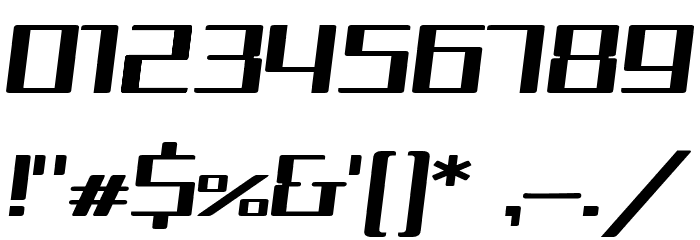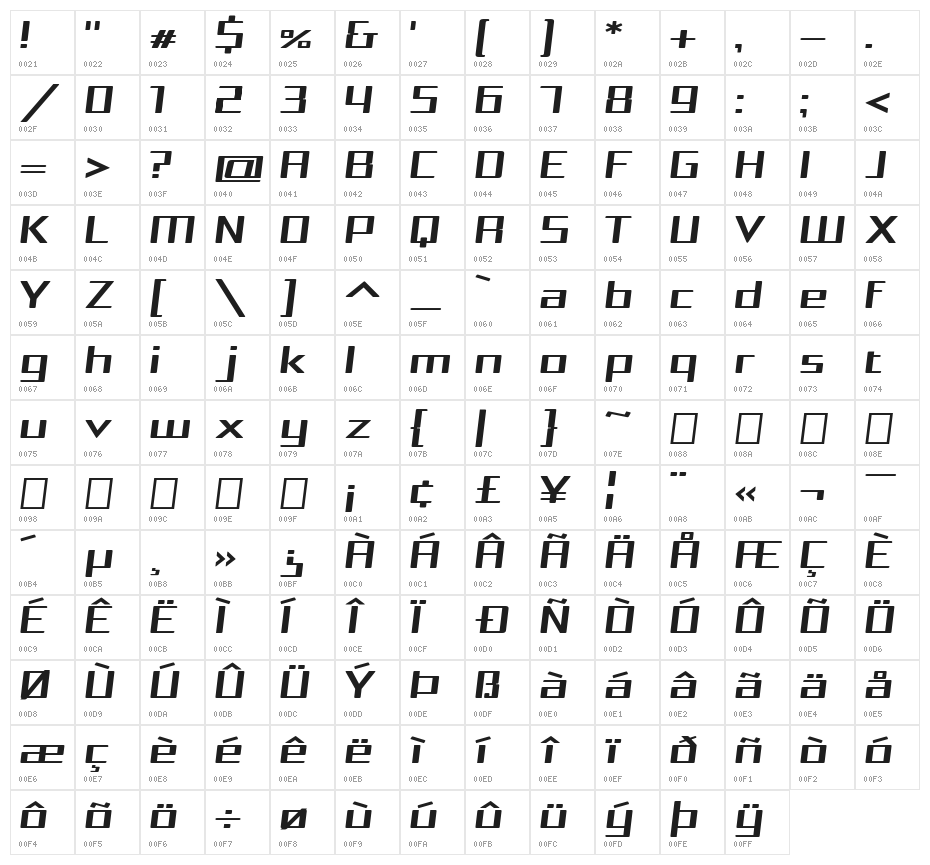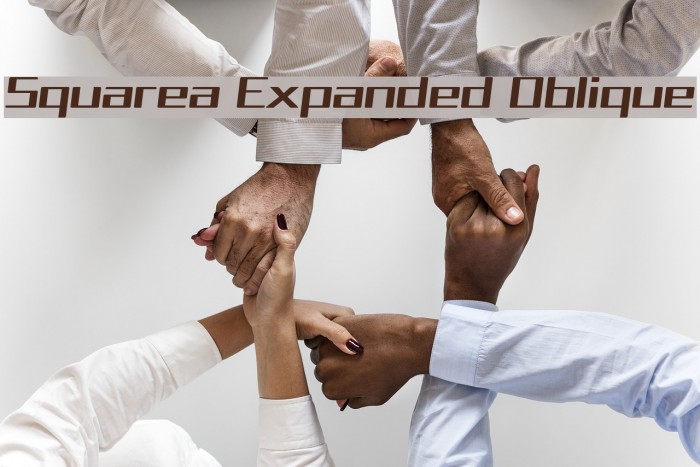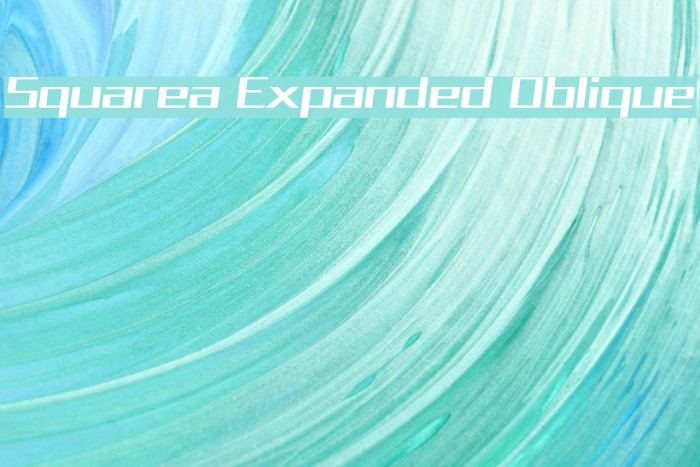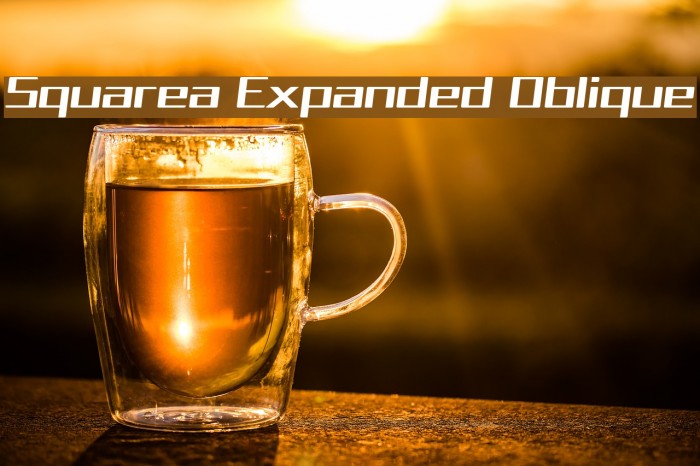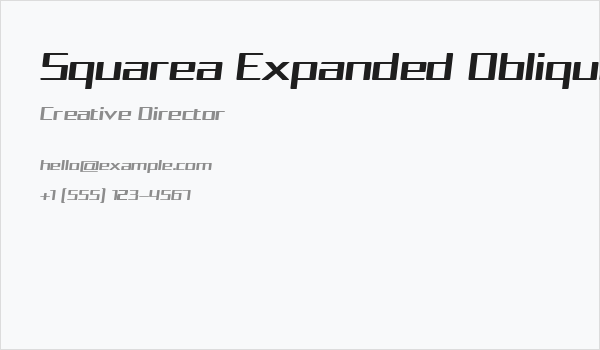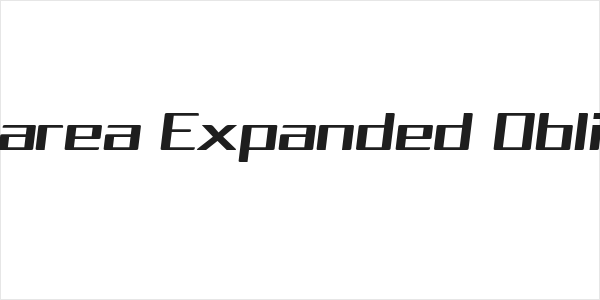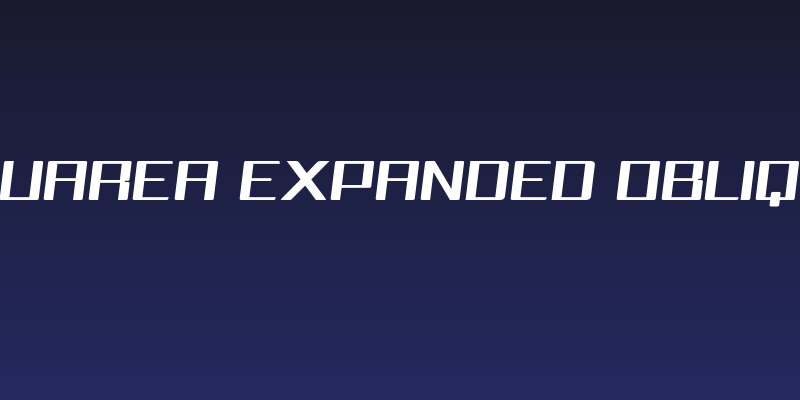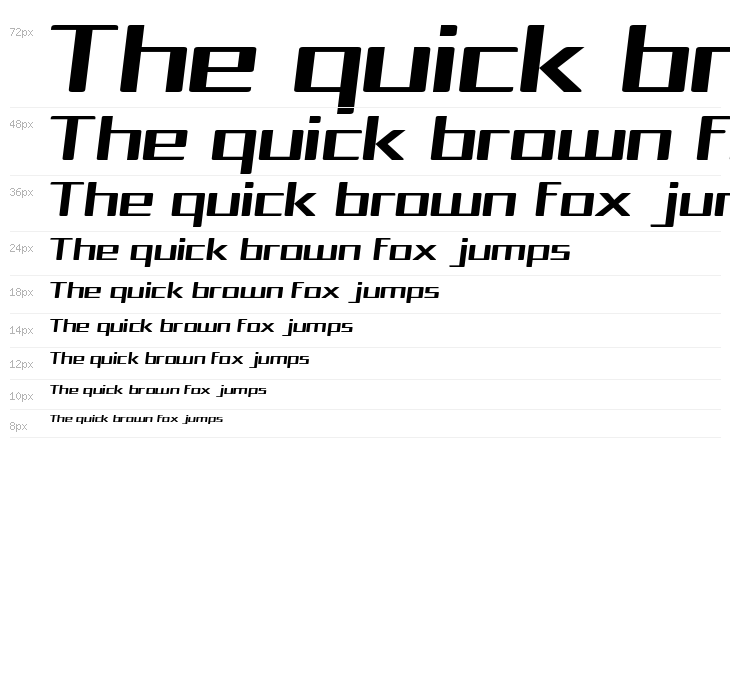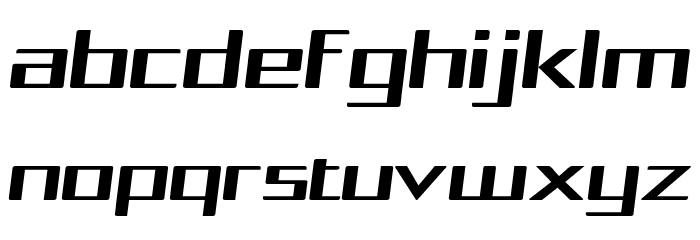
Squarea Expanded Oblique Font
Squarea Expanded Oblique Description
This font exhibits a modern and futuristic style with its expanded and oblique design. The characters are bold and angular, featuring sharp edges and a distinct slant that gives a sense of motion and dynamism. The uppercase and lowercase letters maintain a consistent geometric structure, while the numerals and special characters complement the overall aesthetic. The font's expanded width allows for a strong visual impact, making it suitable for attention-grabbing designs. Its clean lines and uniform stroke thickness contribute to a sleek and contemporary appearance.
| Overall Style | Futuristic, Dynamic |
| Proposed Projects | Ideal for technology branding, futuristic posters, video game titles, and sci-fi themed projects. |